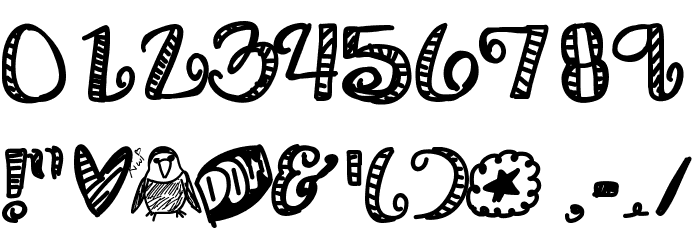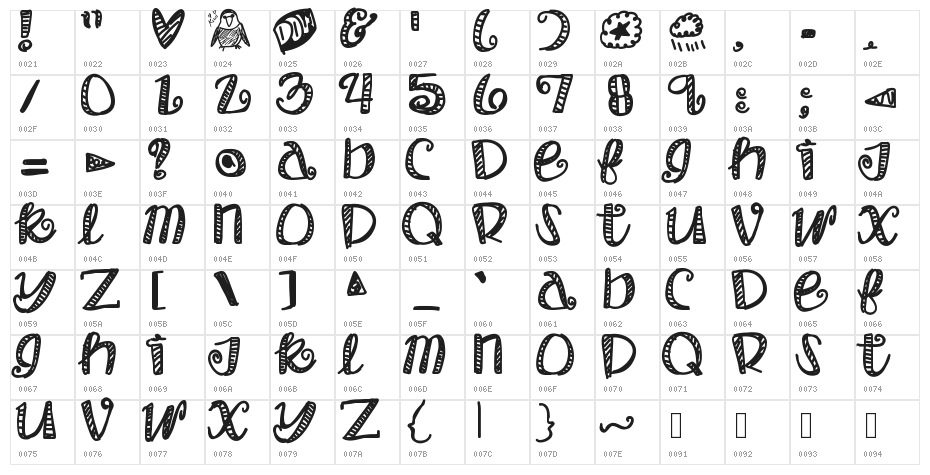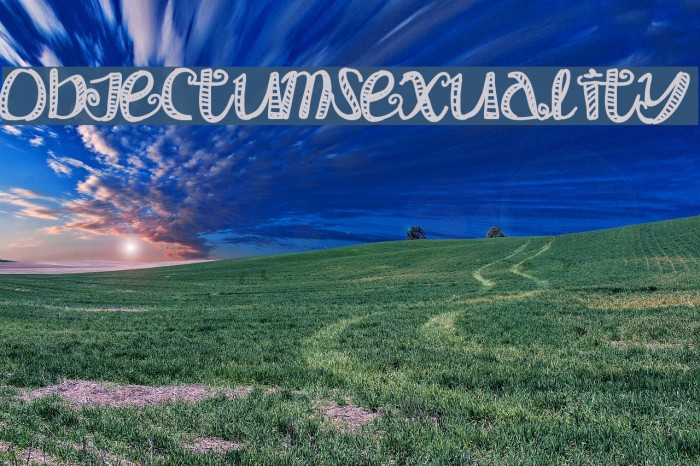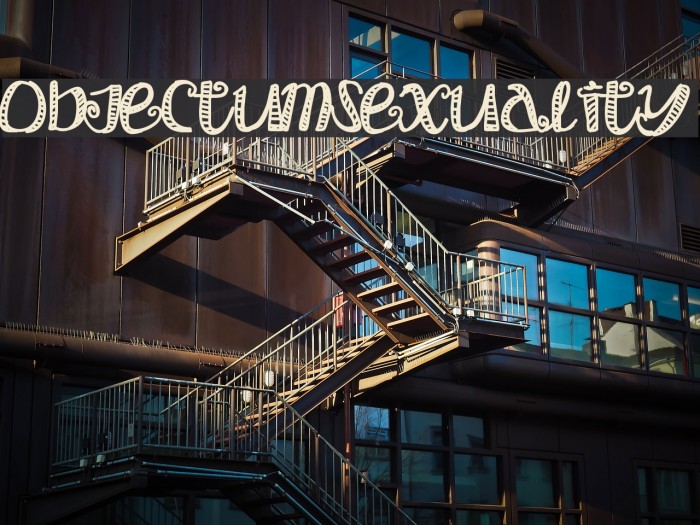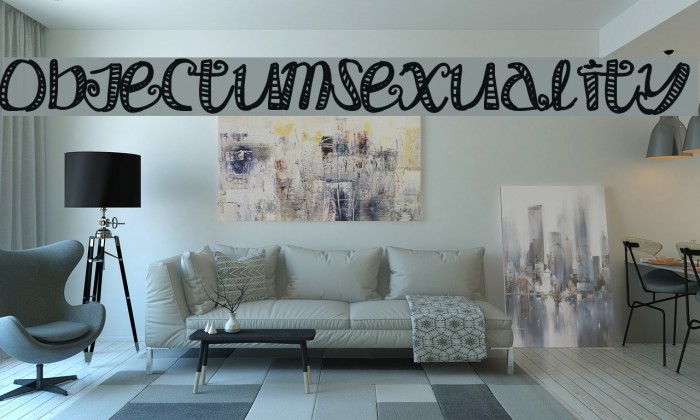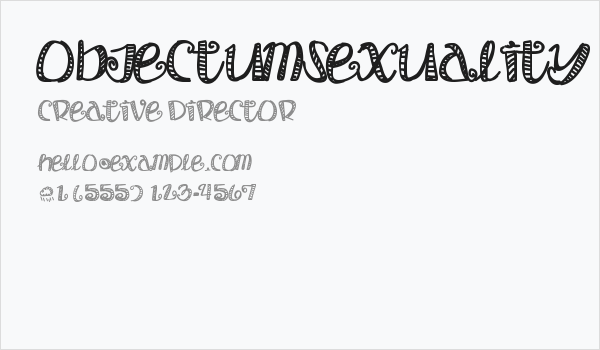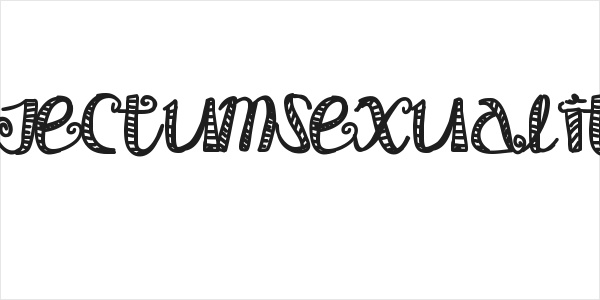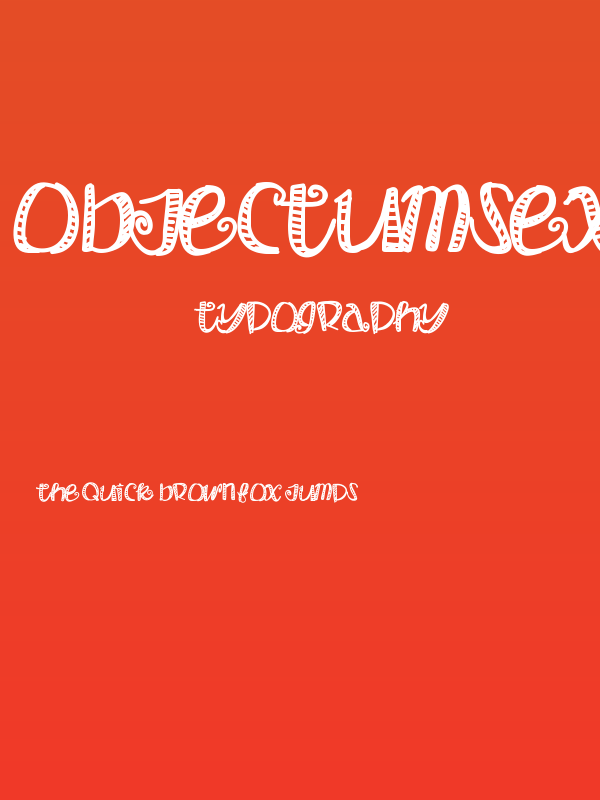
ObjectumSexuality Font
ObjectumSexuality Description
This playful and whimsical font features a hand-drawn style with bold, rounded characters. Each letter is adorned with unique patterns, such as stripes and dots, adding a lively and decorative touch. The font maintains a consistent thickness throughout, giving it a cohesive look. The characters are slightly slanted, contributing to a dynamic and energetic feel. The numbers and special characters follow the same decorative theme, ensuring uniformity across all glyphs. This font is perfect for creative projects that require a fun and engaging aesthetic.
Proposed ProjectsIdeal for children's books, playful branding, greeting cards, and creative posters.